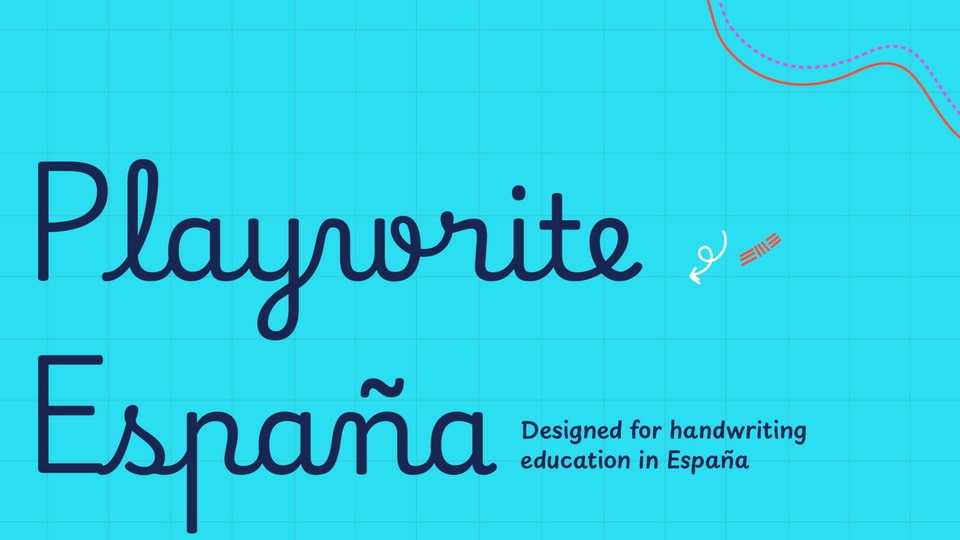
Download Playwrite España, a typeface that allows the creation of primary school cursive fonts. Primary school handwriting in Spain features letters that are cursive from a structural standpoint but have no slant.
Designer: TypeTogether